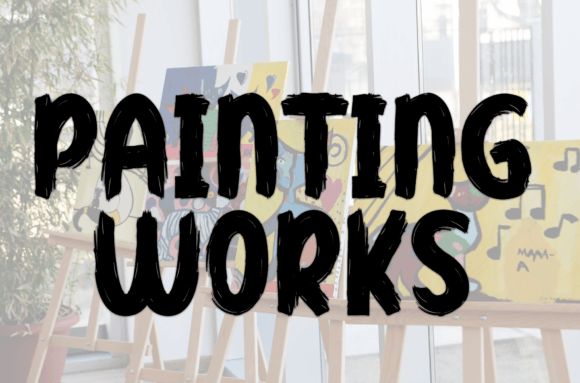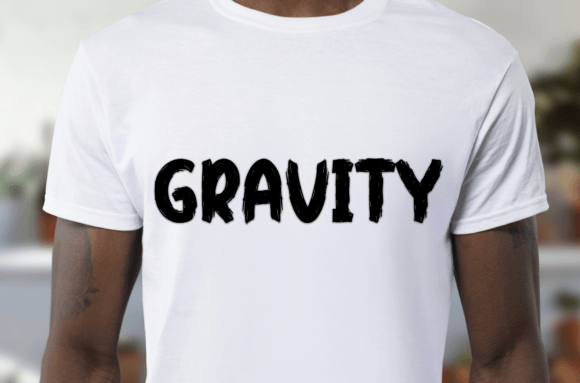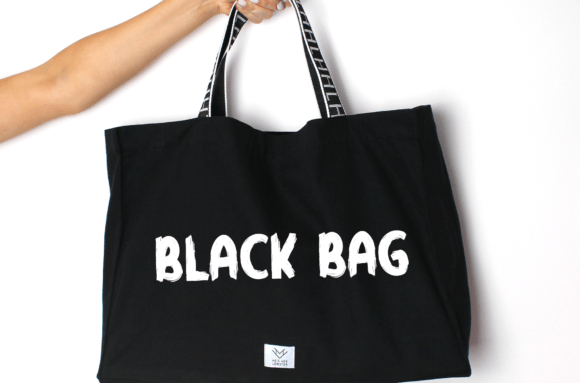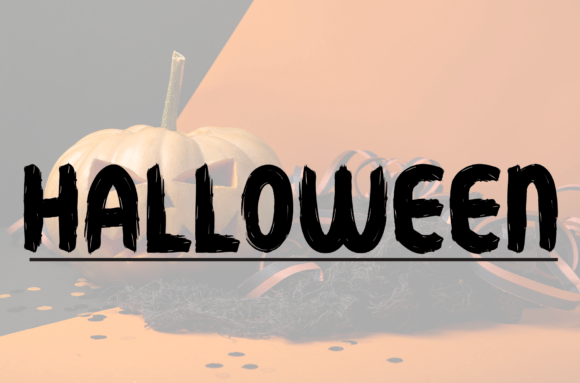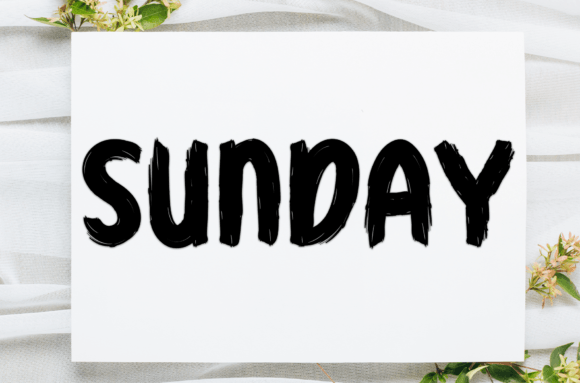
Writing Brush
About Writing Brush
this is a sweet and friendly handwritten display font. Cute and fun, this font is ideal for writing wedding invitations, cards, or any other design that might need a fun touch!